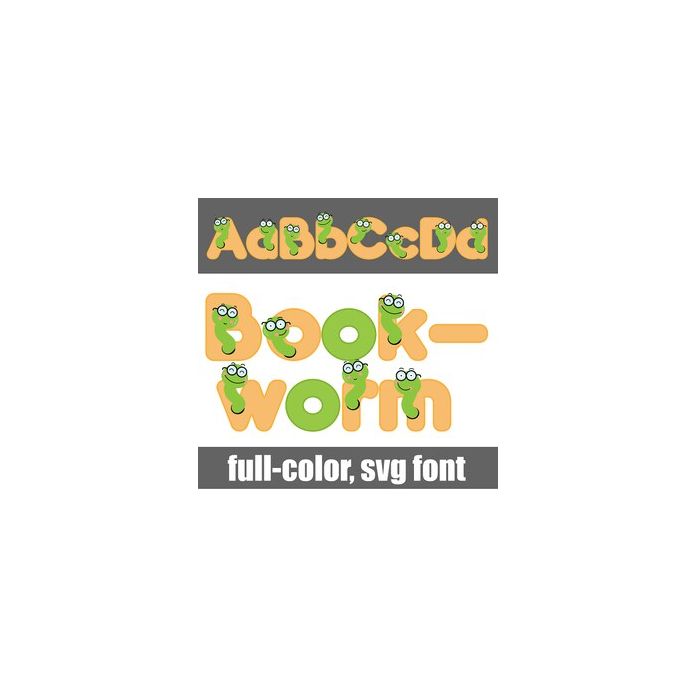
This full-color font features chunky sans serif lettering with bookworms. There is an alt case w/ additional colors you can access through your system or Silhouette's glyph map.